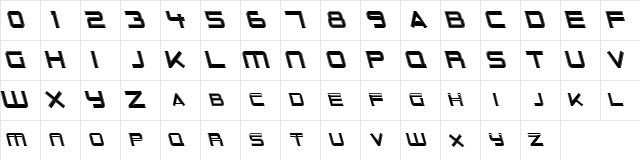
Outer Limits Italic
Design Context for Outer Limits Typeface
Outer Limits is a composed and adaptable typeface that performs quietly and consistently across a wide range of design contexts. The dynamic lean of this cut emphasises speed and emphasis in any layout.
Pro Tip: Use Outer Limits for emphasis, pull quotes, and subheadings where its slanted energy can add rhythm to the layout.